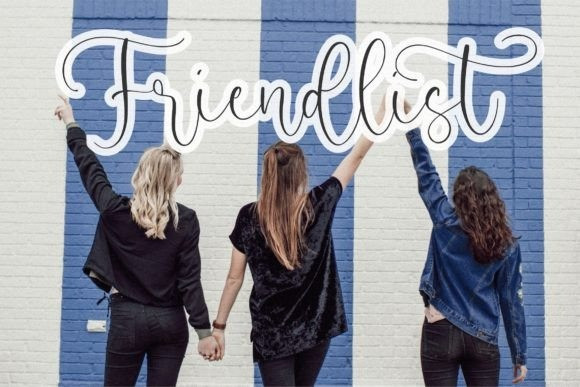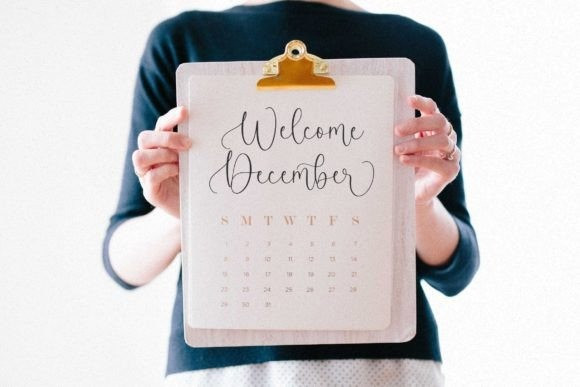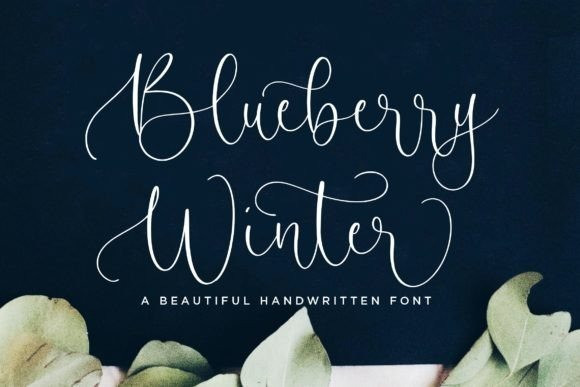
Blueberry Winter Font
Blueberry Winter Script Font is a dainty and elegant handwritten script font. Whether you’re using it for crafts, digital design, presentations, or making greeting cards, this font has the potential to become your favorite go-to font, no matter the occasion! Blueberry Winter is PUA encoded which means you can access all the glyphs and alternates with ease!